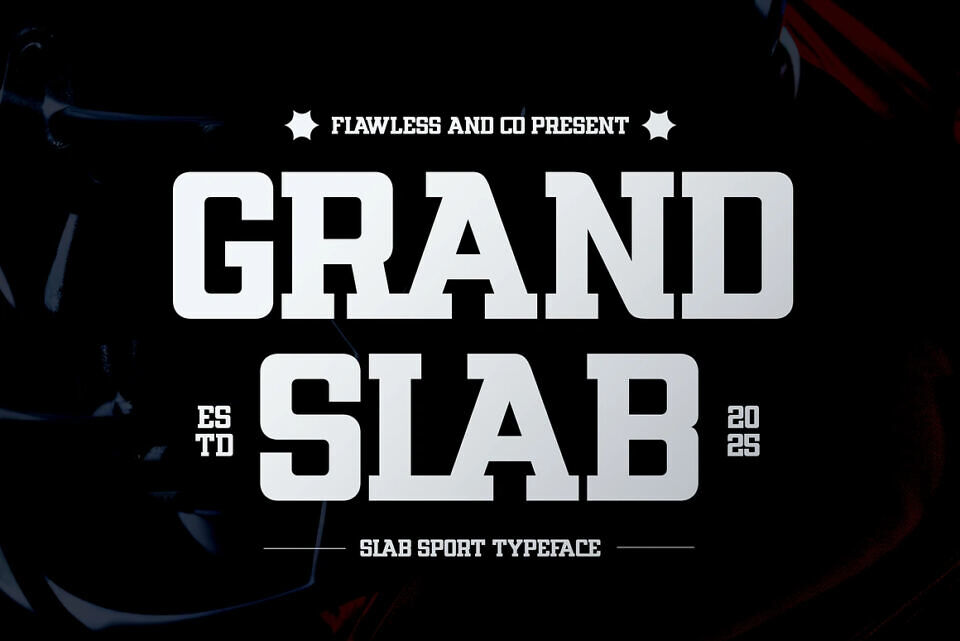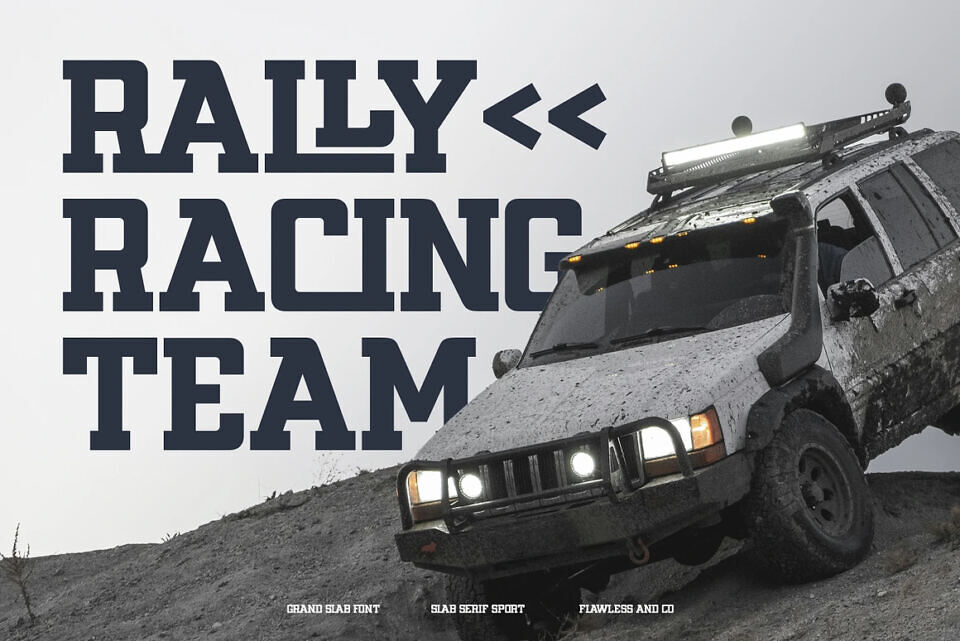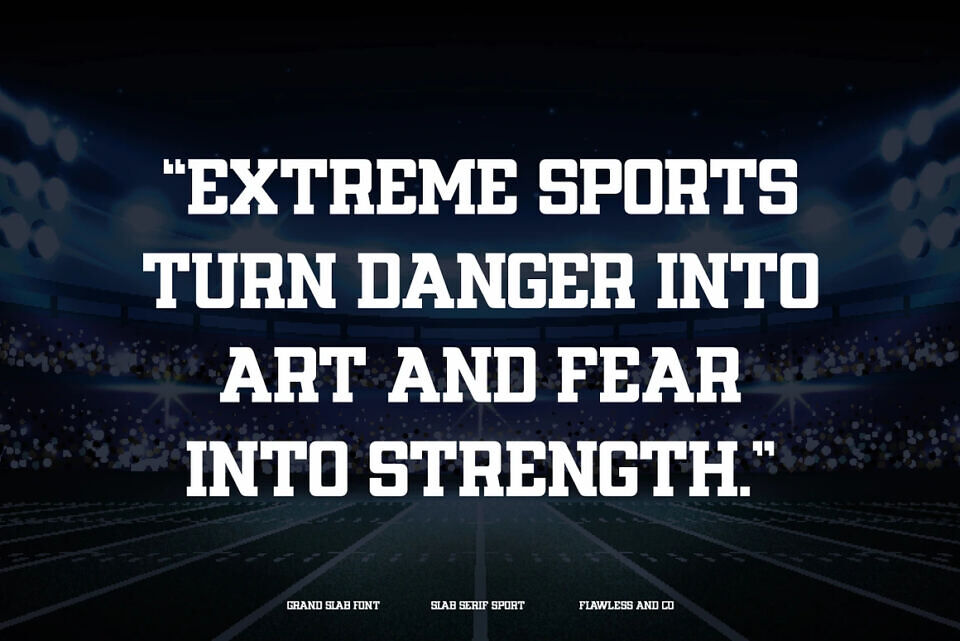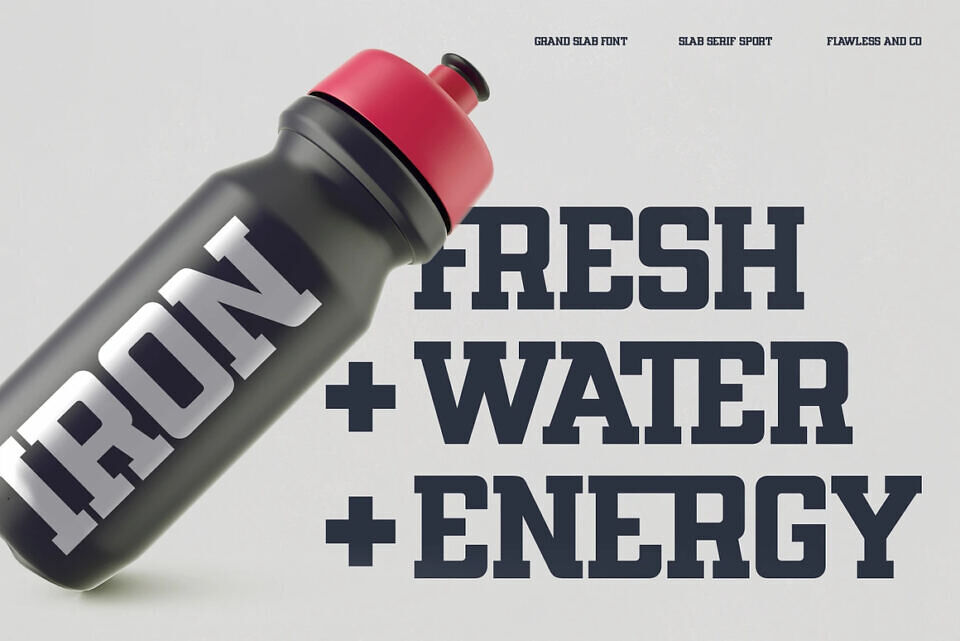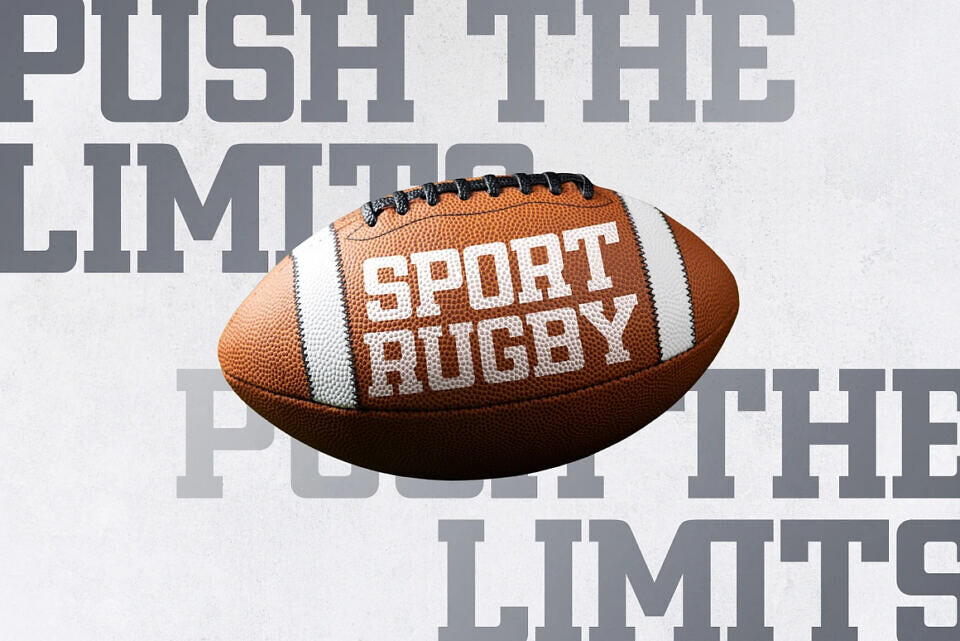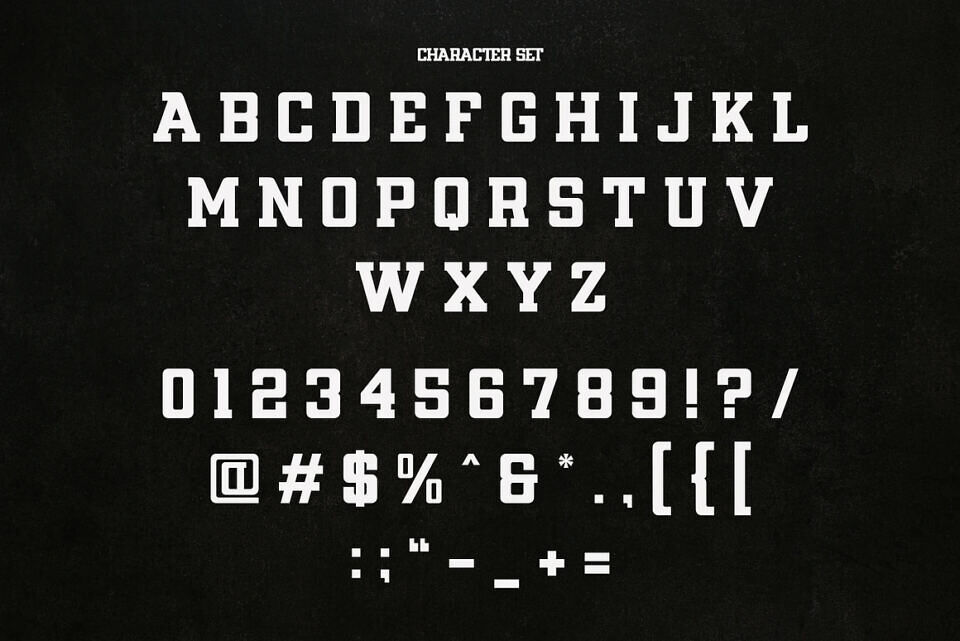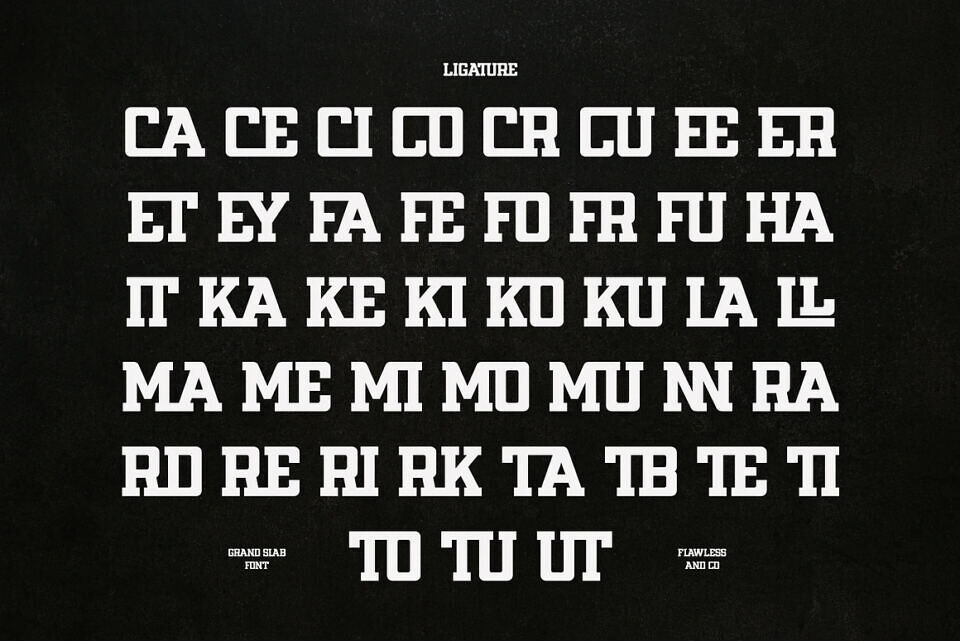
Grand Slab Font
Introducing Grand Slab, a bold slab serif typeface crafted for athletic performance and sports branding. This powerful font captures the energy and determination of competition with its strong serifs and solid structure.
Ideal for dynamic posters, logos, and athletic apparel, Grand Slab delivers impact and authority in every design. Its commanding presence and versatile style embody the grit and intensity of sports.